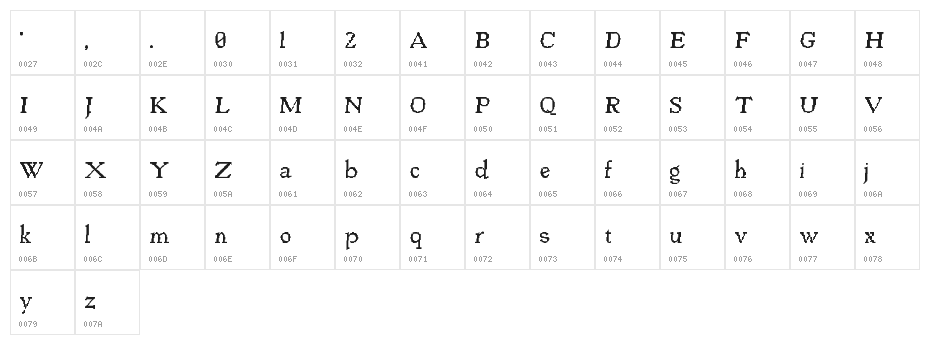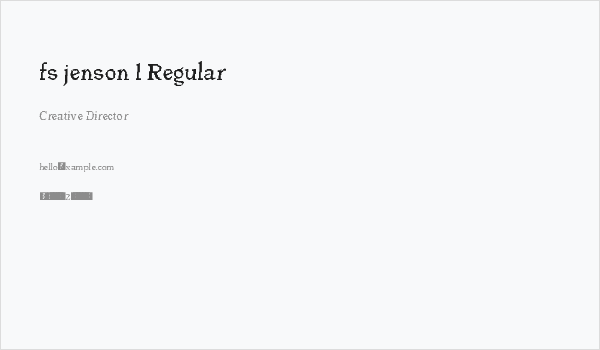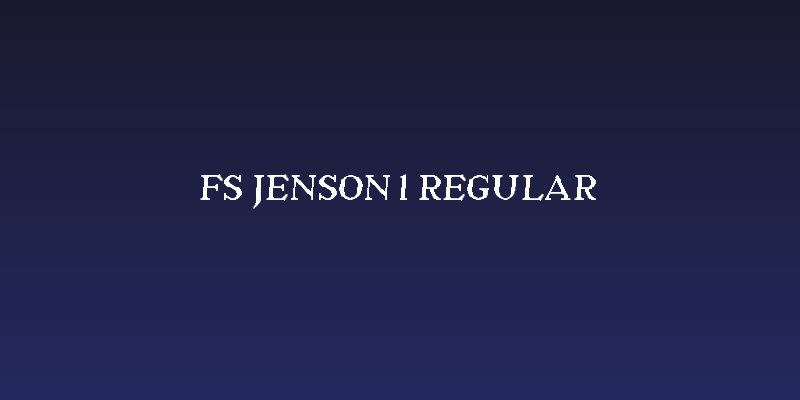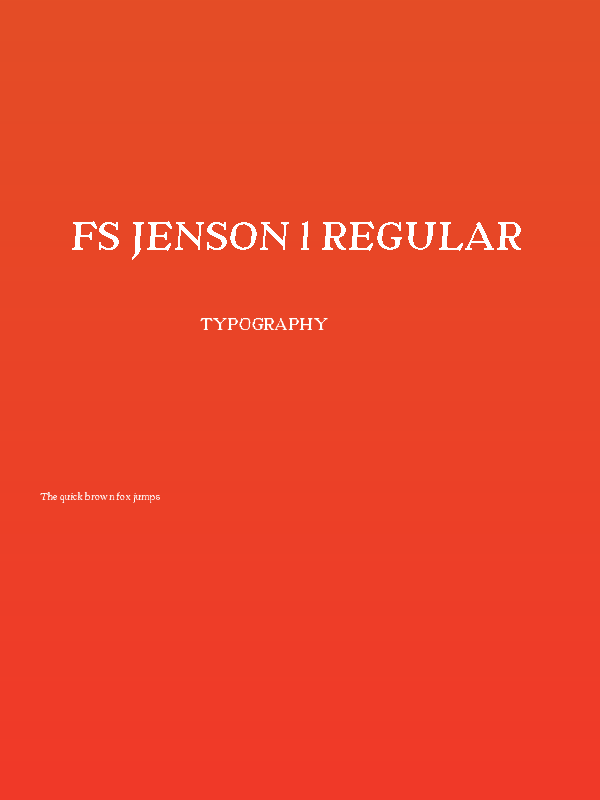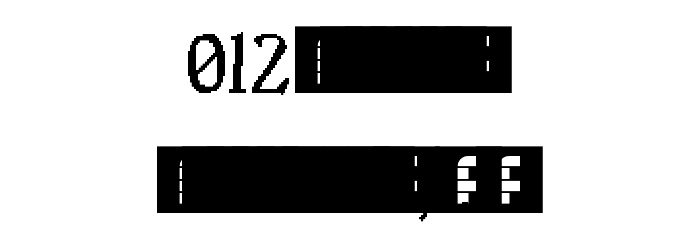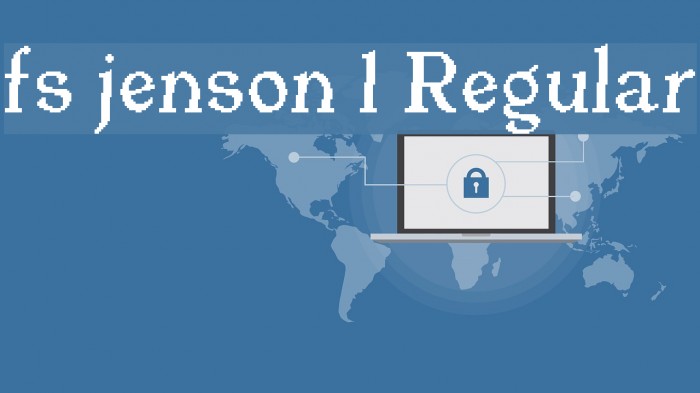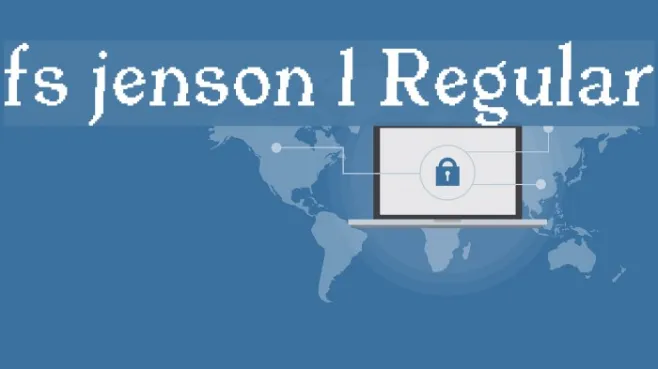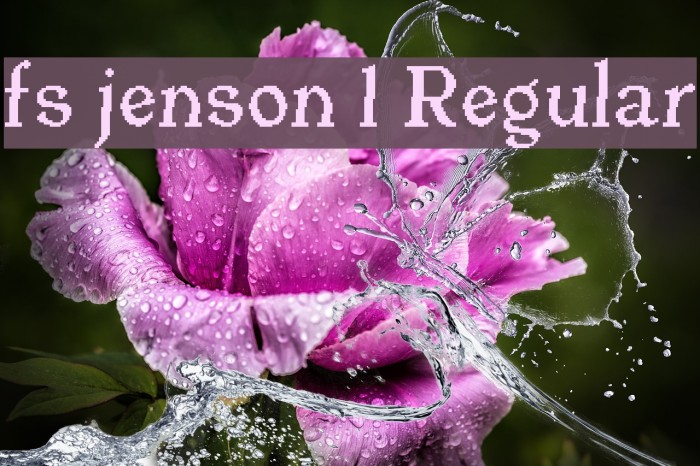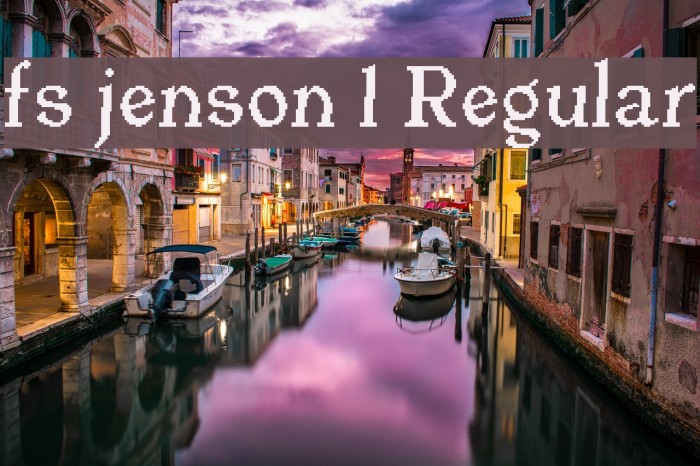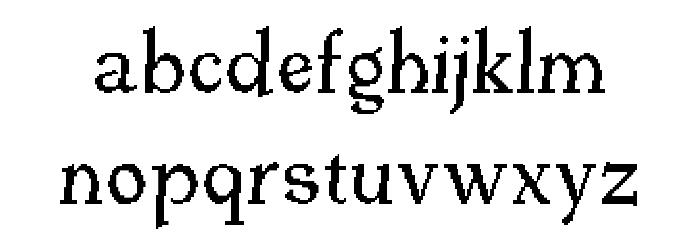
fs jenson 1 Regular Font
fs jenson 1 Regular Description
This font exhibits a classic serif style with elegant and refined strokes, characterized by its traditional and timeless appearance. The uppercase letters are well-proportioned, with distinct serifs that enhance readability and add a touch of sophistication. The lowercase letters maintain a consistent style, with smooth curves and balanced proportions. The numerals are clear and legible, making them suitable for both text and display purposes. The special characters are designed to complement the overall aesthetic, ensuring versatility in various design contexts.
| Proposed Projects | Ideal for editorial design, book covers, formal invitations, and branding projects that require a touch of elegance and tradition. |